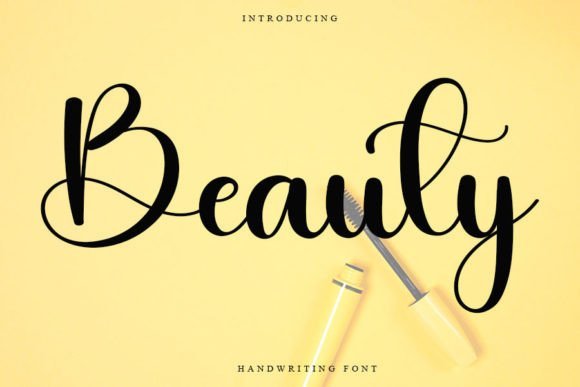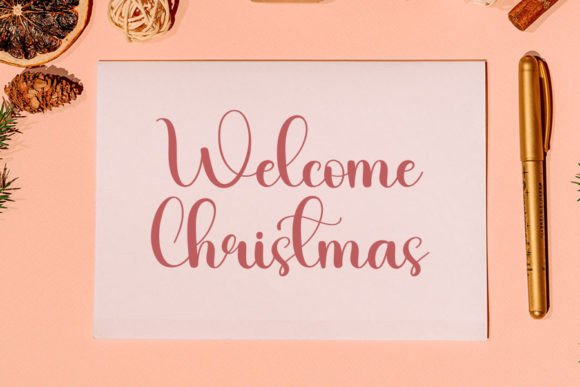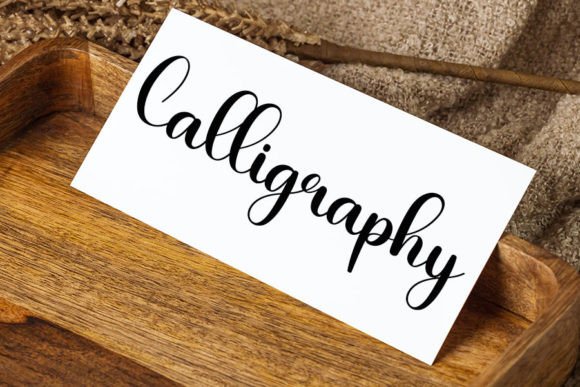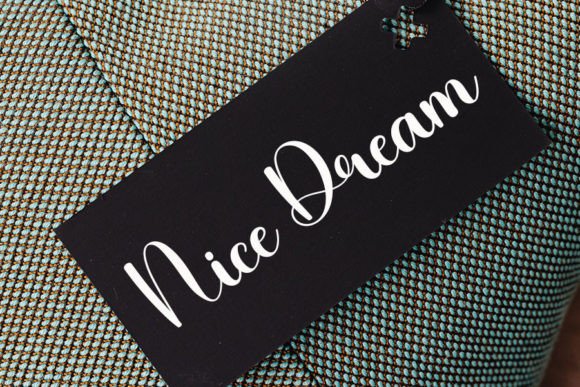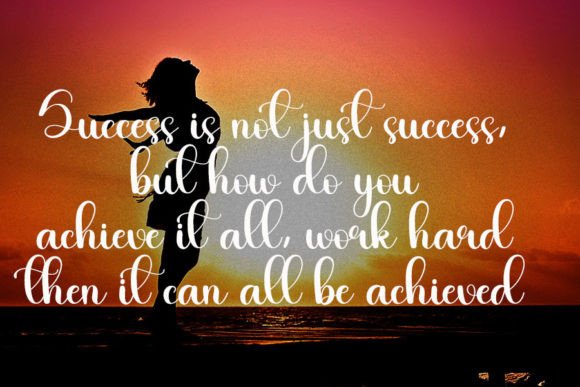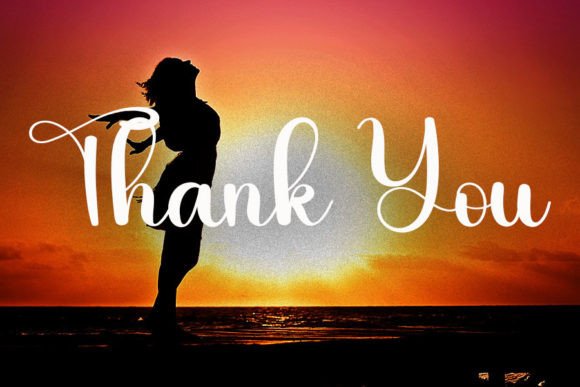
The Perfect Touch: Unlocking the Power of Beauty Font
There’s something magical about a creative moment – the spark that ignites when inspiration strikes, and suddenly, an idea takes shape. For designers, this feeling is all too familiar. We’ve all been there, staring at a blank canvas, waiting for the perfect spark to ignite our imagination. And that’s exactly what happens when you discover the Beauty Font.
This charming handwritten font is more than just a pretty face; it’s a versatile tool that can elevate any project from a simple greeting card to a bold headline. With its natural and effortless feel, Beauty Font adds a touch of warmth and personality to any design. Whether you’re a seasoned pro or just starting out, this font is a valuable asset in your creative toolkit, guaranteed to bring a smile to your face and a sparkle to your design.
Key Features of Beauty Font
- Unique Characteristics: Beauty Font features a unique blend of elegance and sophistication, with intricate details and ornate flourishes that make it perfect for high-end designs and luxury branding.
- Language Support: Beauty Font supports a wide range of languages, including Latin, Cyrillic, Greek, and many others, making it a versatile choice for global branding and marketing campaigns.
- Kerning and Ligatures: Beauty Font includes advanced kerning and ligature features, ensuring that text flows smoothly and naturally, even in complex layouts and compositions.
Beauty Font Review
Overall, I’m impressed with the Beauty Font. It’s a beautiful, elegant script font that’s perfect for any project that requires a touch of sophistication and glamour. ✨
- The font’s fluid, flowing lines create a sense of movement and energy, making it perfect for headings and titles.
- The font’s high contrast between thick and thin strokes creates a sense of depth and visual interest.
- The font is highly legible, even at small sizes, making it suitable for body text.
- The font is available in a range of weights and styles, making it easy to customize to fit your project’s needs.
- The font may not be suitable for projects that require a more modern or edgy look.
- The font’s high contrast may not be ideal for projects with a lot of dark or bold elements.
- The font may not be as versatile as some other fonts, making it less suitable for projects that require a lot of font switching.
Overall, I think the Beauty Font is a great choice for any project that requires a touch of elegance and sophistication. While it may have some limitations, its beauty and versatility make it a great addition to any designer’s toolkit.
Getting the Most Out of Beauty Font
For the best results, use Beauty Font in designs where a elegant and sophisticated look is desired. This font pairs well with neutral colors and simple backgrounds.
Beauty Font is ideal for:
- Formal event invitations
- High-end product packaging
- Luxury branding and marketing materials
Alternatives to “Beauty Font” for Designers
Playfair Display is an elegant, high-end serif font that exudes sophistication and refinement. It’s ideal for use in luxury brands, high-end fashion, and fine art applications. When to use: Headlines, titles, and short paragraphs where a touch of opulence is desired.
Comparison to Beauty Font: While Beauty Font has a more playful feel, Playfair Display is more formal and traditional. Both fonts have a high-end aesthetic, but Playfair Display is better suited for more serious and refined applications.
Great Vibes is a modern, script font that conveys a sense of fun and whimsy. It’s perfect for use in creative, youthful, and energetic branding. When to use: Headlines, titles, and short paragraphs where a playful, handwritten feel is desired.